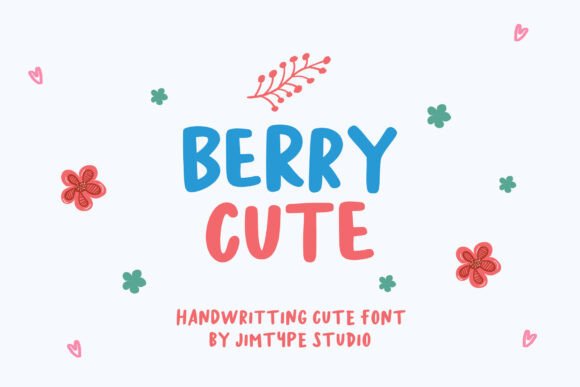
Introducing Berry Cute: The Charming Handwritten Font You Need
Have you ever been working on a design project, and suddenly, you’re stuck on finding the perfect font? I recall a recent experience where I was tasked with creating a whimsical brand identity for a local bakery. The client wanted a font that was both playful and sophisticated. After hours of searching, I stumbled upon a font that became the perfect fit – Berry Cute. In this article, we’ll dive into the world of Berry Cute, a beautiful handwritten font that’s sure to elevate your designs.
What Makes Berry Cute Special?
Berry Cute is a charming, messy handwritten font that adds a natural touch to your designs while still feeling refined. Its unique character makes it perfect for various applications, including branding, packaging, quotes, invitations, logos, websites, social media, headers, posters, and more.
An Honest Review of Berry Cute
- ✅ Unique and charming handwritten style
- ✅ Perfect for designs that require a natural, yet sophisticated touch
- ✅ Easy to read and works well in various sizes
- ⚠️ Some letters may have slight inconsistencies in spacing, which can be adjusted manually
- ⚠️ Limited availability of extended language support
The Backstory of Berry Cute
Berry Cute was designed with the intention of creating a unique, handwritten font that captures the essence of a carefree, creative spirit. The designers at Jimtype Studio aimed to craft a font that would add a personal touch to designs without sacrificing sophistication. The result is a charming font that’s perfect for a wide range of applications.
Q: Is Berry Cute suitable for body text?
A: While Berry Cute is easy to read, it’s primarily designed for display purposes. For body text, consider using a font with better legibility.